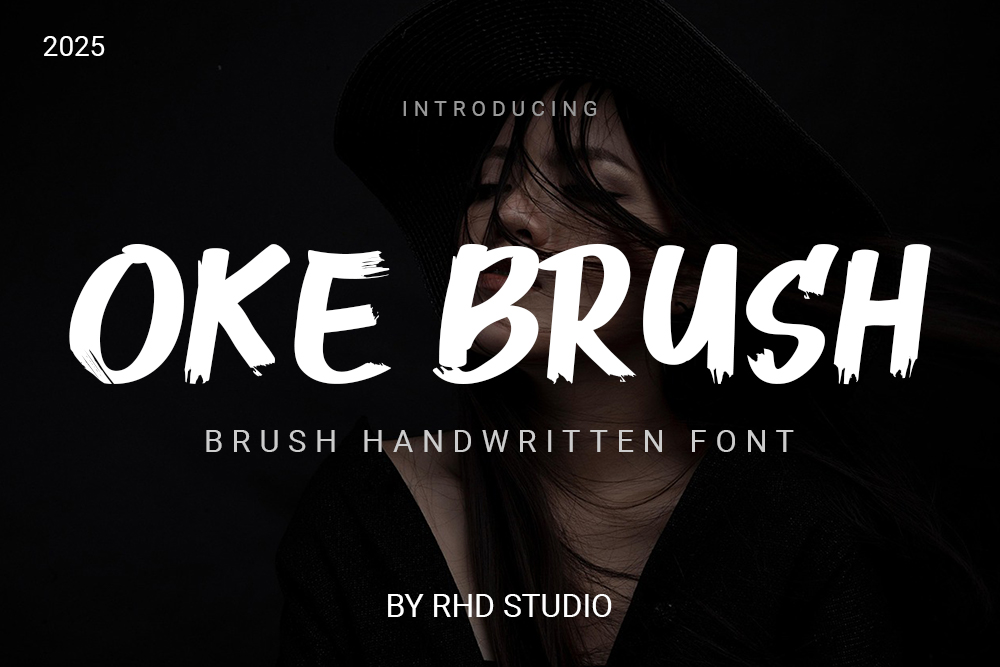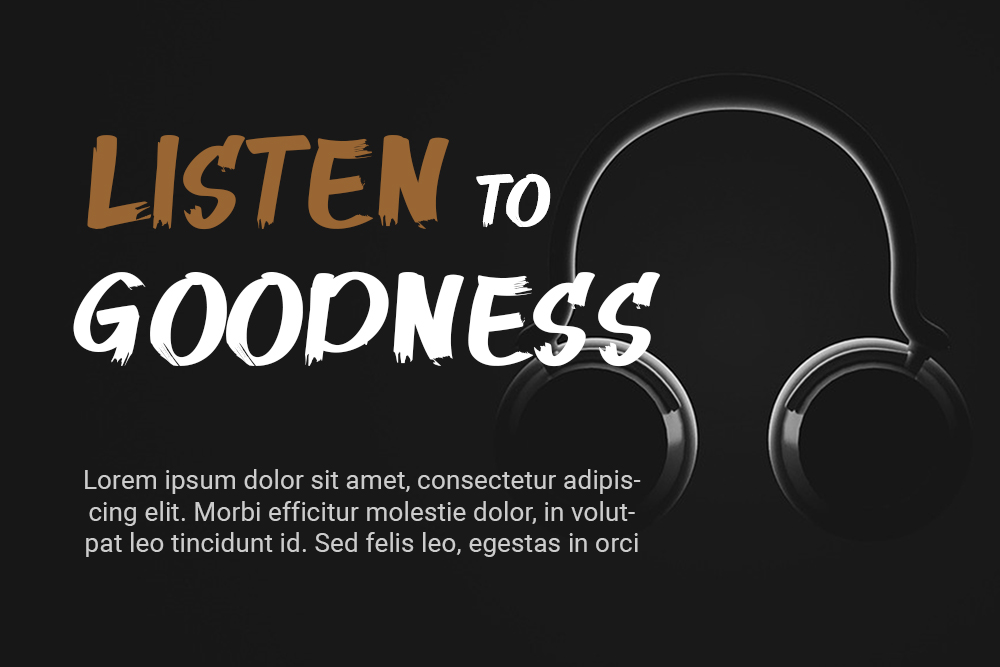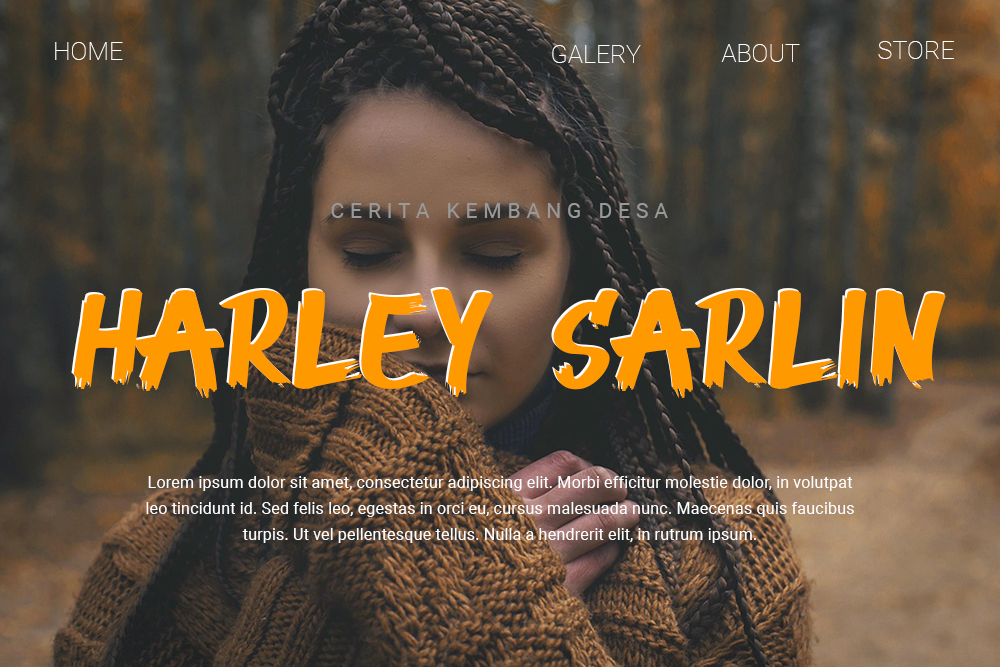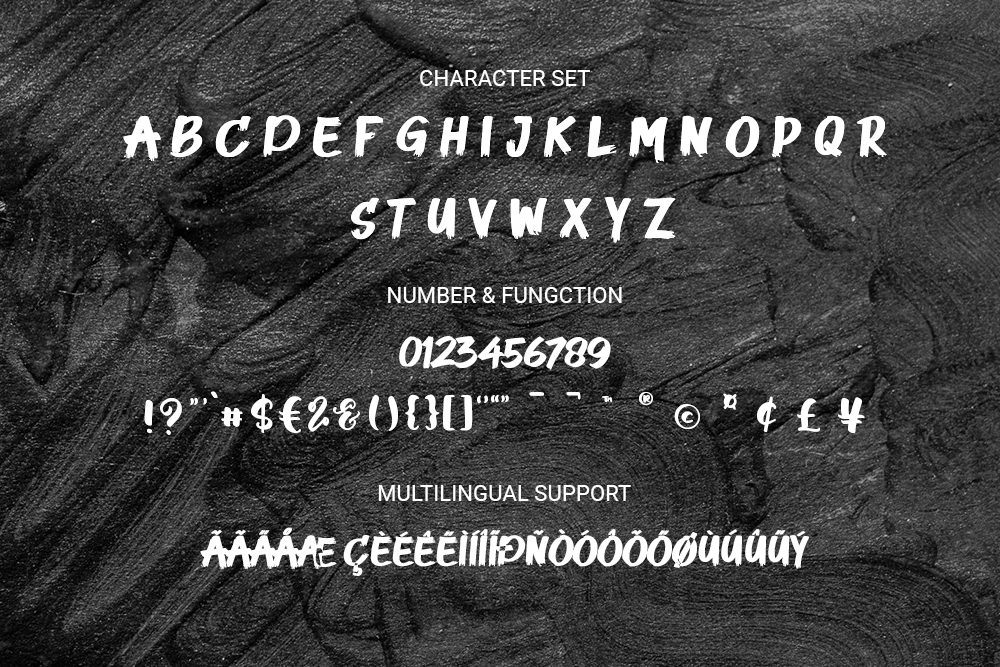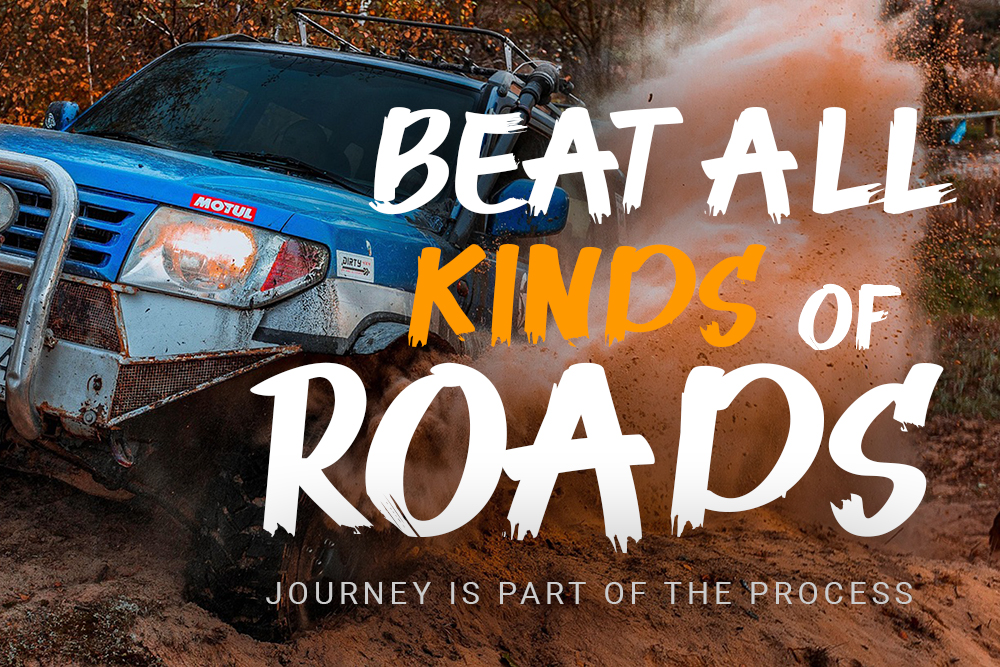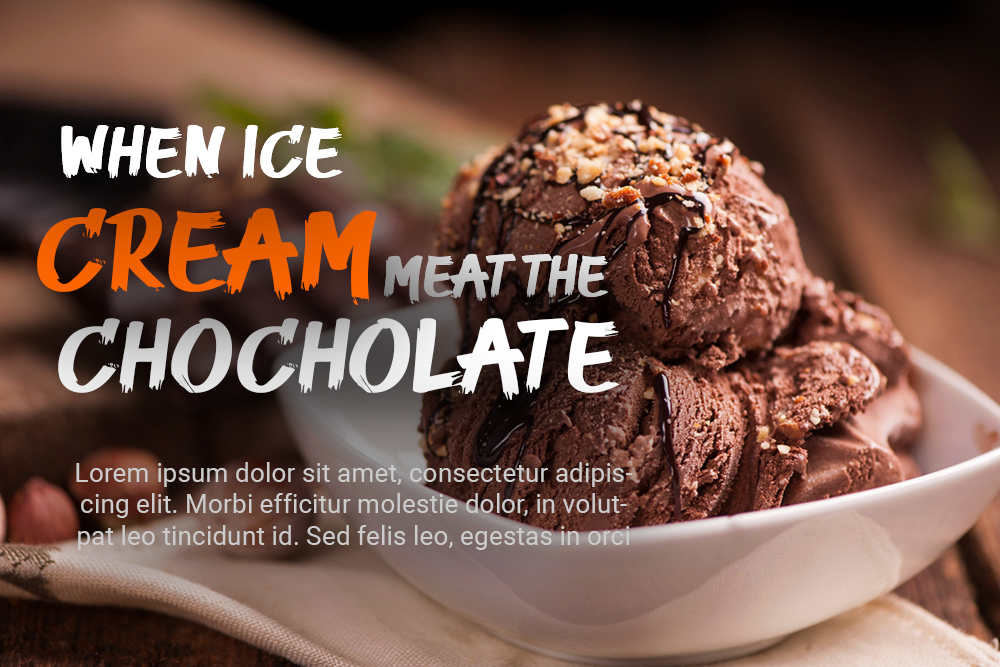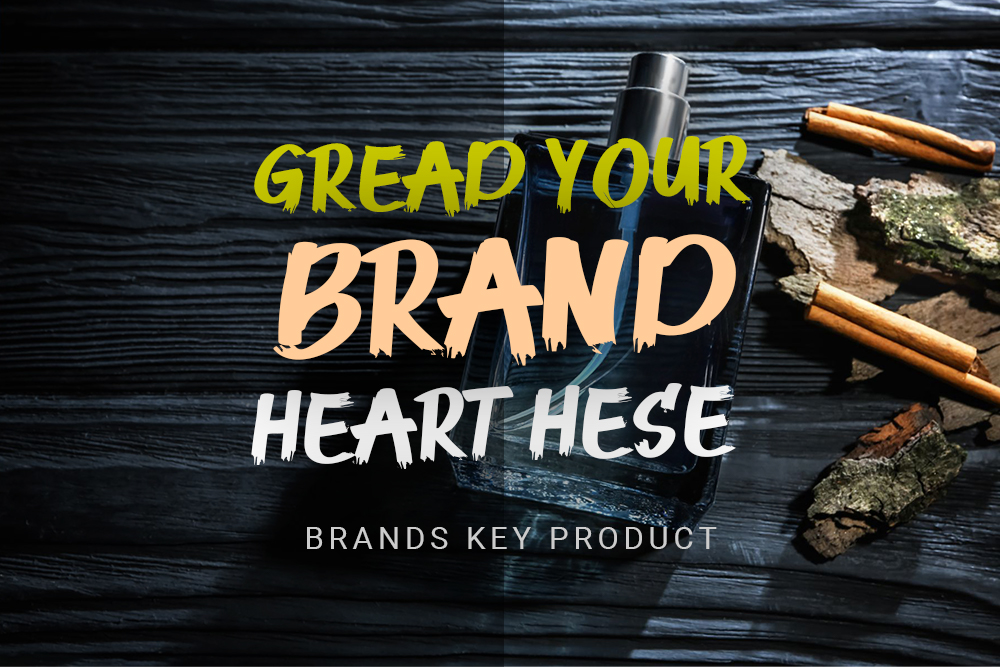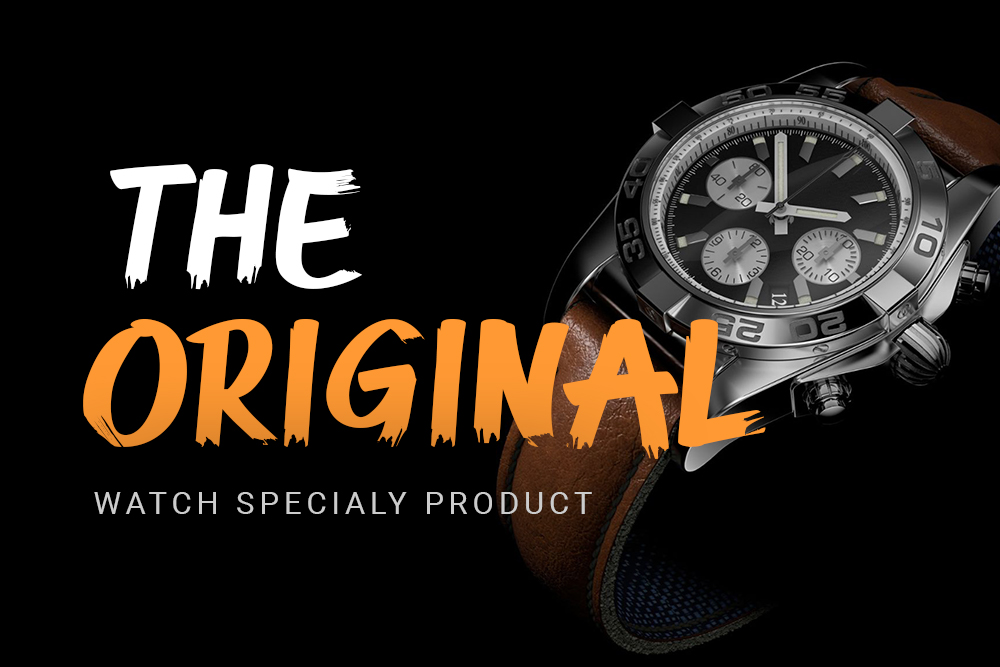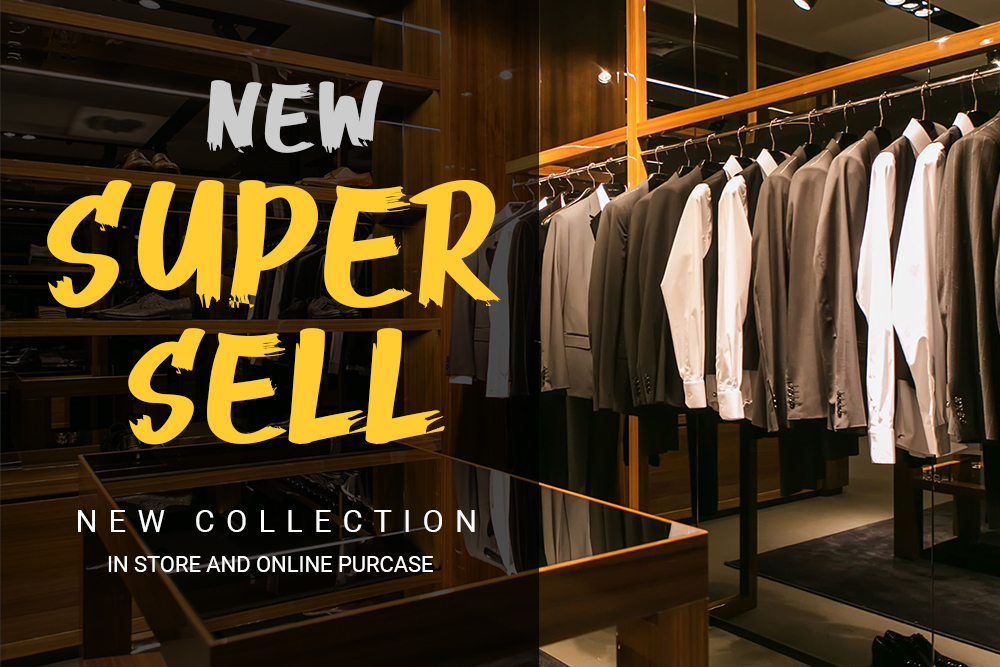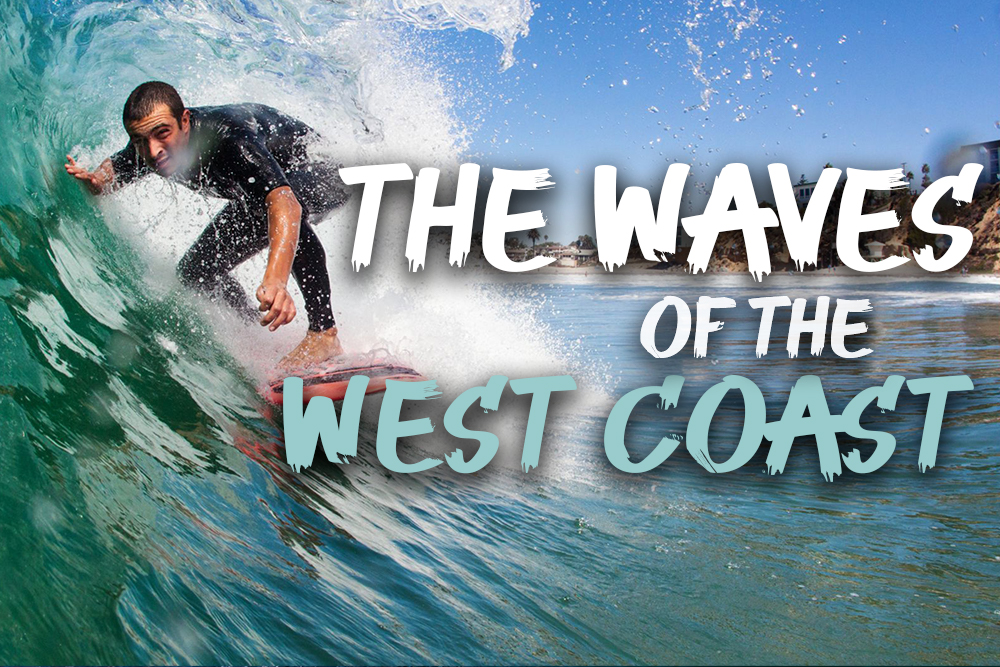
OKE BRUSH – Brush Handwritten Font
OKE BRUSH Handwritten Font with Handmade character. OKE BRUSH bring authentic handwritten font to make your design project stand out!
Hello everyone, I would like to introduce OKE BRUSH Brush Handwritten Font.
OKE BRUSH Handwritten Font with Handmade character. OKE BRUSH bring authentic handwritten font to make your design project stand out! OKE BRUSH is a perfectly choice for any creative endeavor, creating, modern, chic, lifestyle design such as logotype, title, cover, branding, invitations, wedding designs, display and magazine, social media posts, advertisements, printed quotes, product packaging, corporate brand, product designs, labels, photography, watermarks, special events and any other project with modern touch.
– Uppercase and Lowercase letters
– Numbering and Punctuations
– Multilingual Support